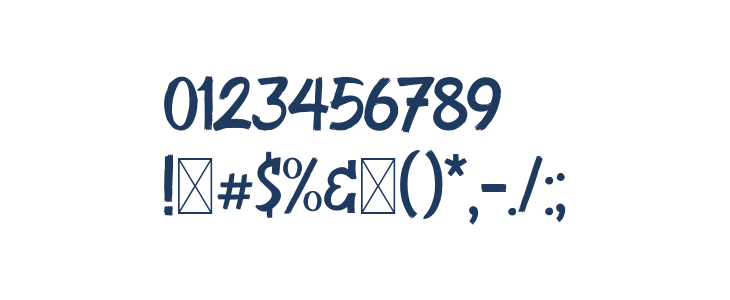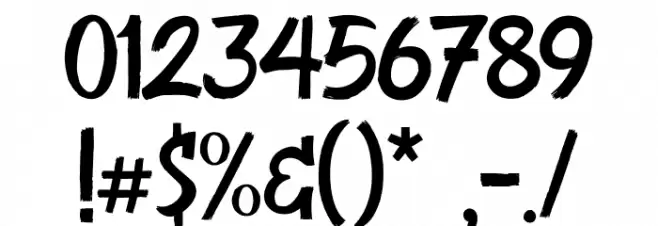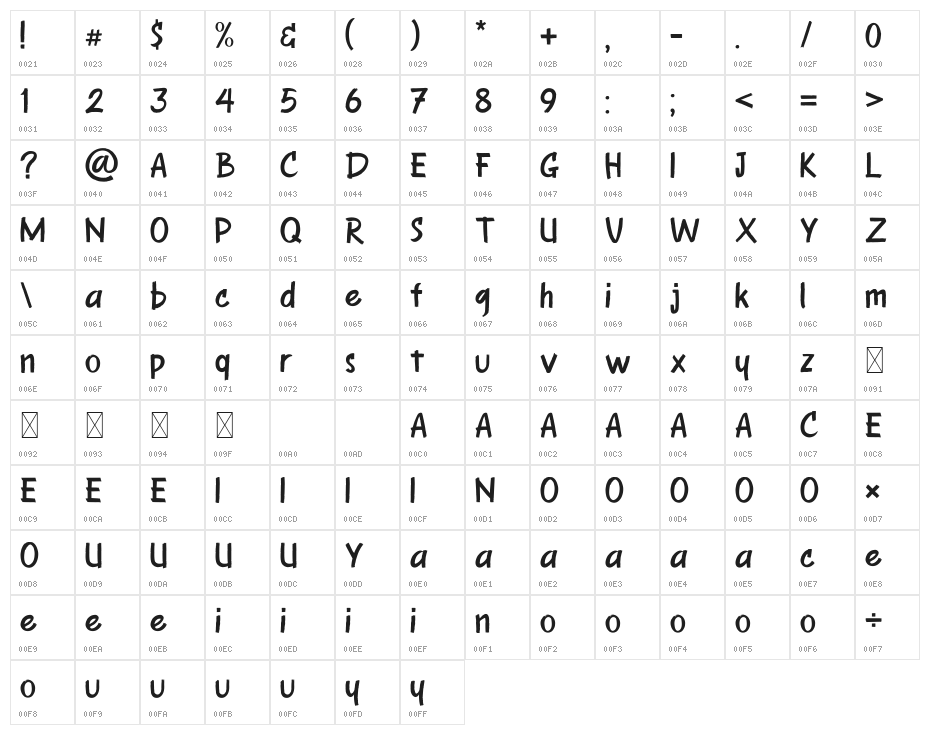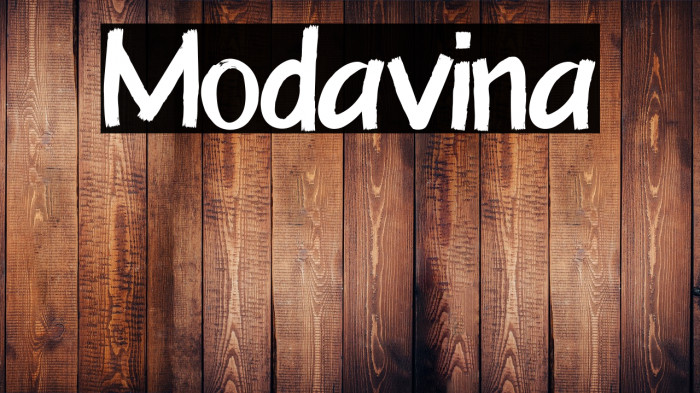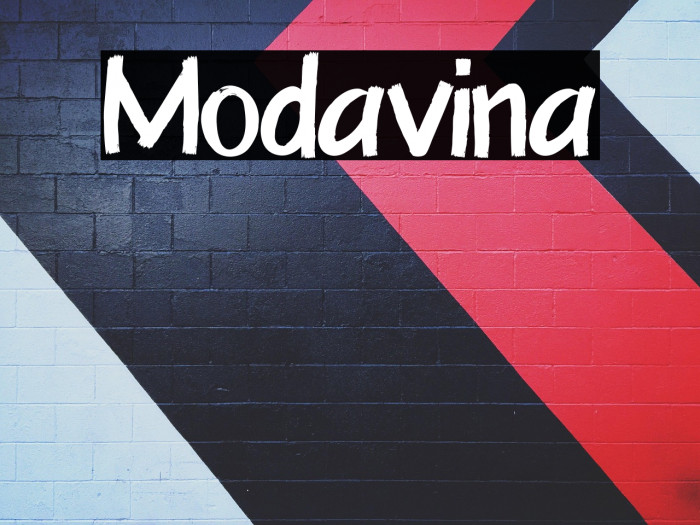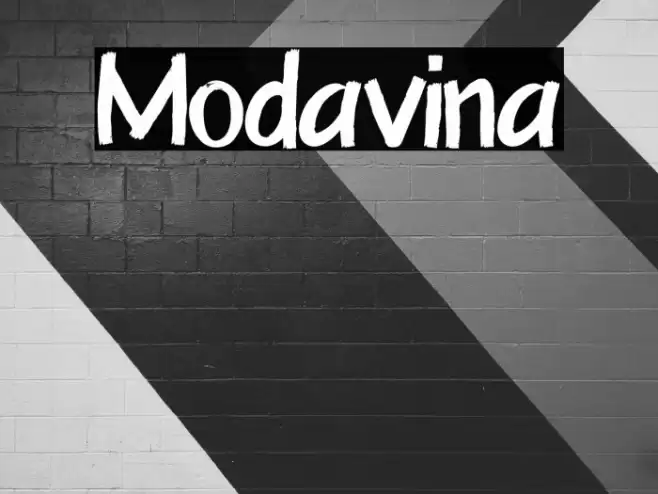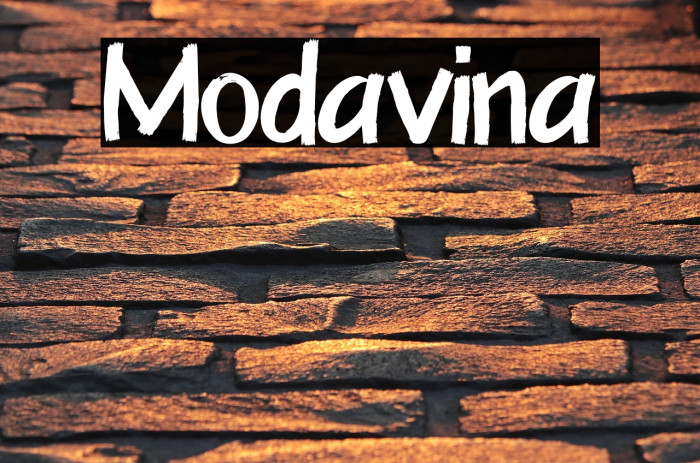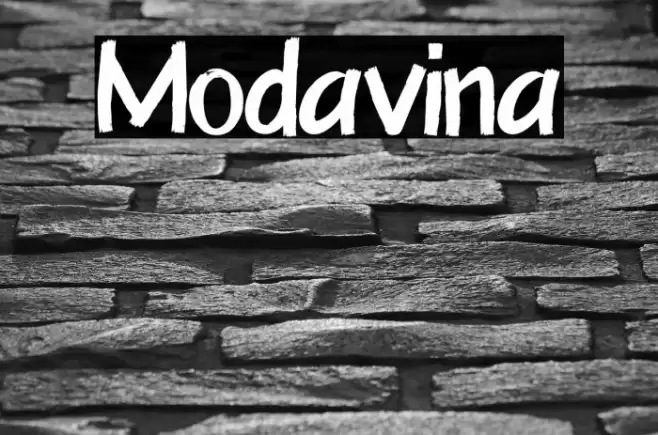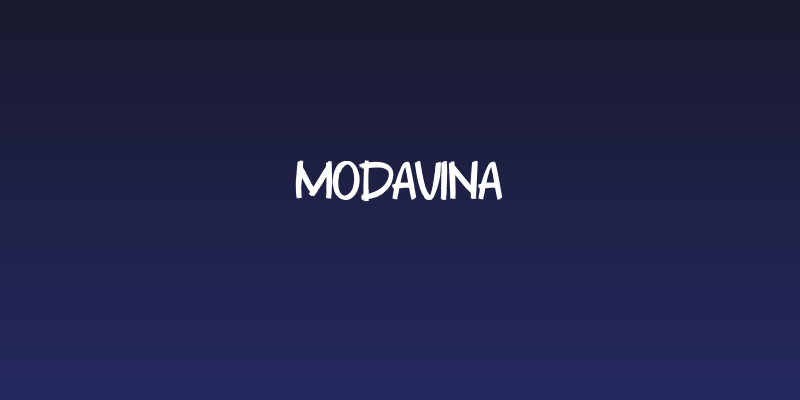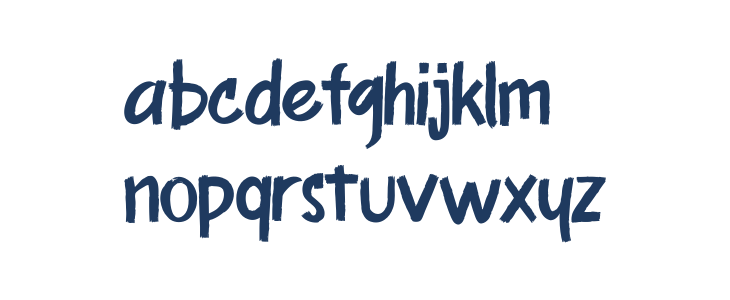
Modavina Font
Modavina Description
This font features a bold and energetic style with a hand-drawn appearance. The characters are slightly irregular, giving a casual and playful feel. The uppercase letters are tall and commanding, while the lowercase letters maintain a consistent flow with rounded edges. Numbers and special characters follow the same dynamic style, making them stand out. The strokes are thick and consistent, adding to the boldness of the font. This font is perfect for projects that require a lively and informal touch.
| Proposed Projects | Ideal for posters, children's books, comic strips, and playful branding. |